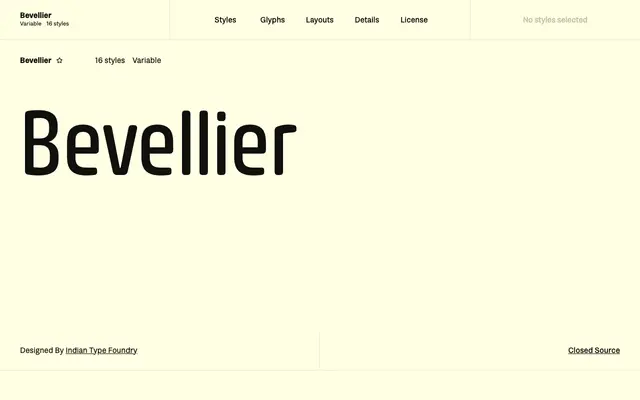
Bevellier
A condensed, spurless sans-serif from Indian Type Foundry with rounded corners and a monolinear stroke across eight weights and matching italics.
Designed by Indian Type Foundry and released on Fontshare in 2021, Bevellier is defined by its narrow proportions, rounded-off corners and the removal of spurs on letters such as 'm', 'n' and 'r'. The crossbar of the lowercase 't' falls short of the full vertical stroke width, reinforcing the typeface's formal reduction. Italics mirror the spurless approach but replace the angular junctions of the upright with curved forms, giving the two styles a distinct internal logic.
Bevellier is a condensed, spurless, monolinear sans-serif with rounded corners and formal reduction, placing it firmly in the geometric sans tradition despite its display orientation.